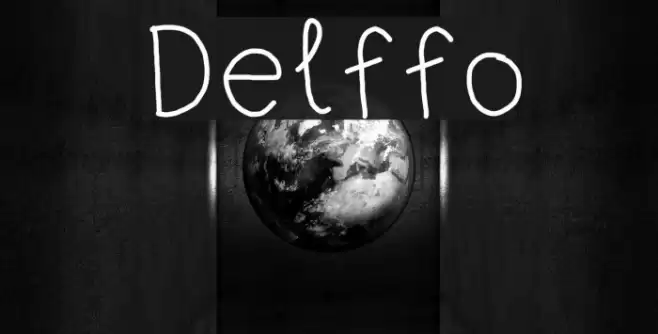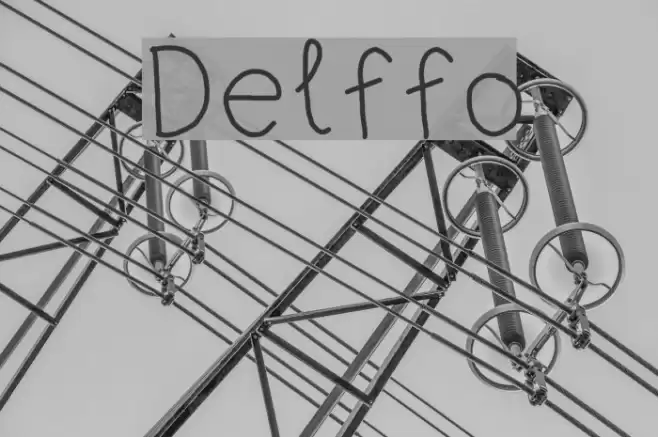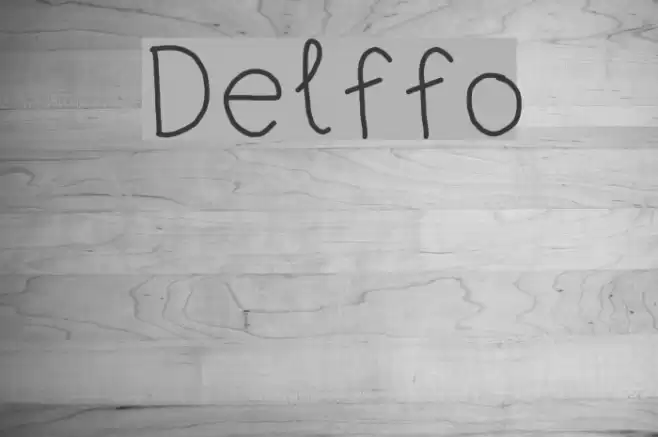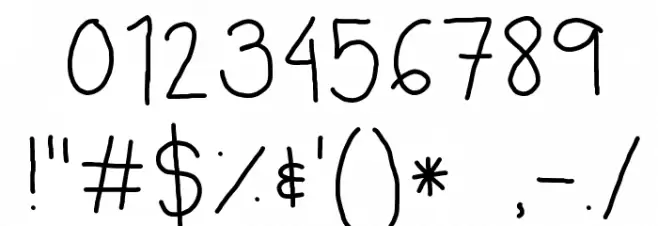
Delffo Font
Delffo Description
This font exhibits a playful and casual handwritten style, characterized by its irregular strokes and slightly uneven baseline. The letters are formed with a consistent line weight, giving it a uniform appearance despite its informal nature. The uppercase and lowercase letters maintain a coherent style, with rounded edges and a slight tilt that adds to its whimsical charm. The numerals and special characters follow the same design principles, ensuring a cohesive look across all glyphs. This font is ideal for projects that require a personal touch, such as greeting cards, invitations, or children's books. Its legibility and friendly appearance make it suitable for both digital and print media.
A playful, casual handwritten font with consistent line weight and whimsical charm from Handwritten fonts.
- Proposed Projects: Greeting cards, invitations, children's books, personal blogs, and casual branding.
- Overall Style: Casual
- Use Case: Headlines, Informal text, Creative projects